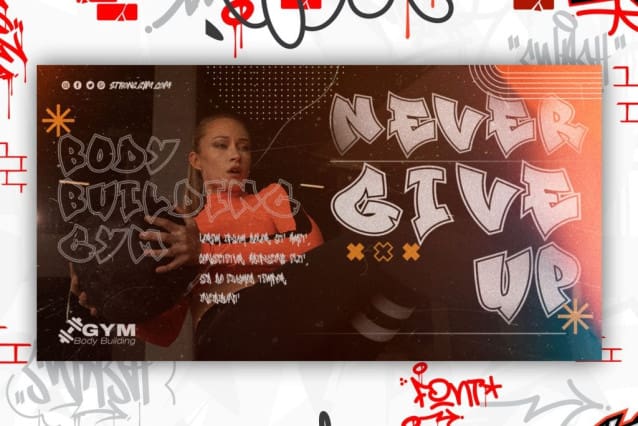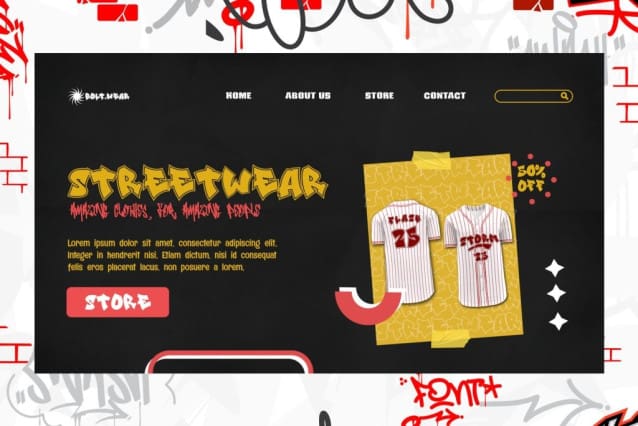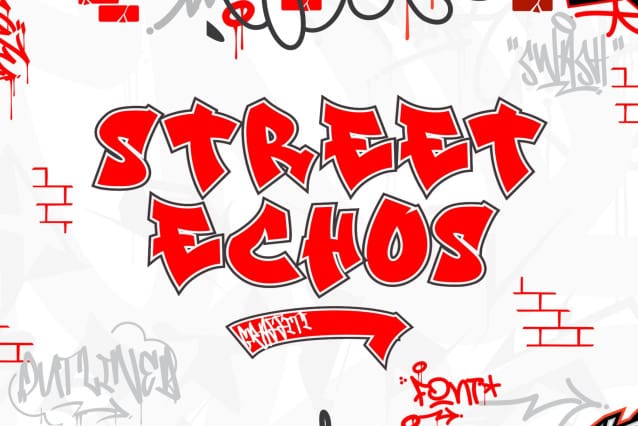
Street Echos Font
Street Echos Font, a graffiti-inspired font that encapsulates the raw energy of street art culture. Offering three varying character styles—solid, outlined, and a hybrid of the two—this adaptable typeface resonates with the spirit of the street, making it an ideal choice for diverse urban-themed projects. Imbue your work with an unmistakable graffiti essence, ranging from vibrant posters and apparel designs to bold branding strategies and vibrant digital artwork.